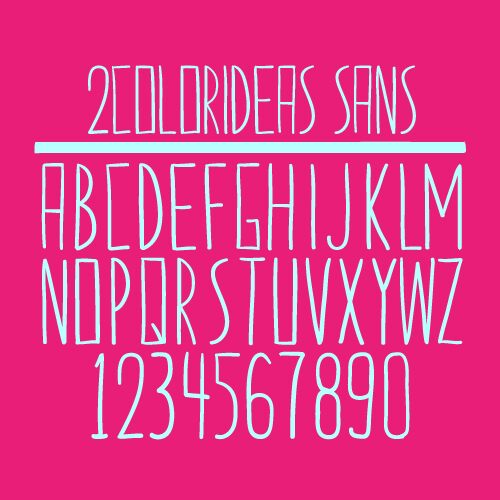
2ColorIdeas Sans, designed by Kimberly Geswein of High-Logic, is a free distorted display font with extremely tall, narrow lettering. Uneven curves and gently wavering strokes give the letters the direct quality of marker-drawn signs. The loose widths and unusually open shapes create a lively, uneven silhouette.
Poster design is its strongest setting, especially for indie music, comedy events, or handmade retail promotions. The stretched forms also suit album covers and quirky packaging, where the lettering can act like a custom-drawn title. Its offbeat proportions connect these uses to DIY culture and playful contemporary illustration.
This typeface was created for my Tumblr blog. It is based on illustrations made using only two colors. A new post is published every day.